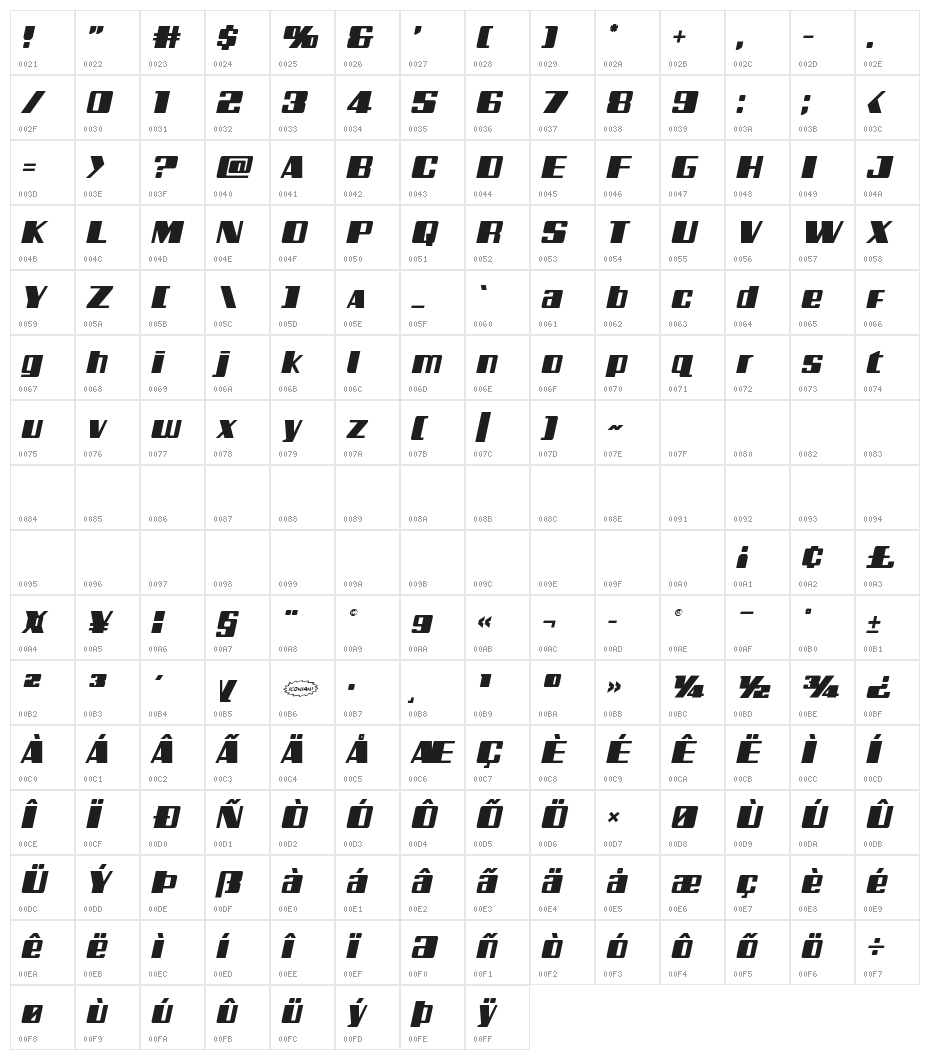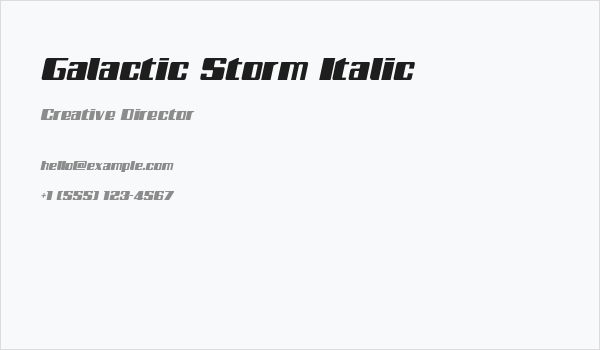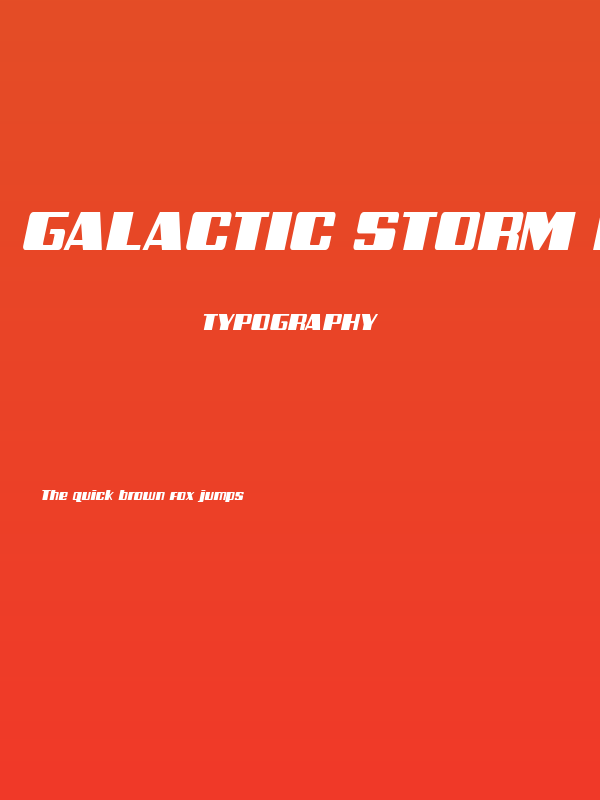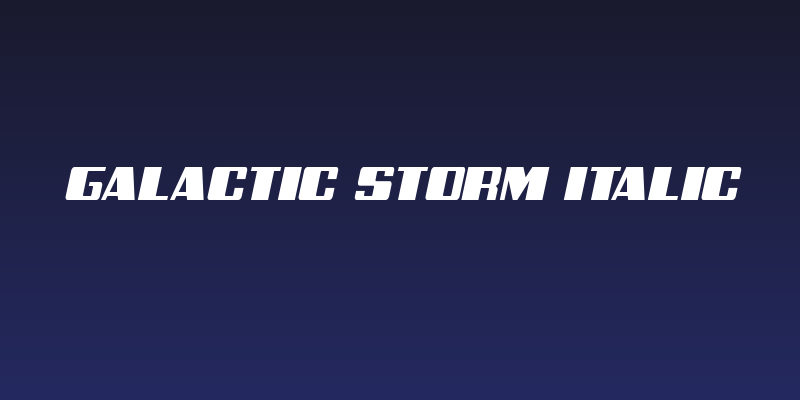
Galactic Storm Italic Font
Galactic Storm Italic Description
This font features a bold and dynamic style with a futuristic flair. The characters are italicized, giving a sense of motion and speed. The strokes are thick and consistent, providing a strong presence on the page. The design includes sharp angles and clean lines, contributing to its modern and edgy appearance. The uppercase and lowercase letters maintain a uniform width, while the numbers and special characters are crafted to match the overall aesthetic. This font is ideal for projects that require a bold statement and a contemporary look.
| Proposed Projects | Ideal for sci-fi themed posters, video game titles, and branding for tech companies. |